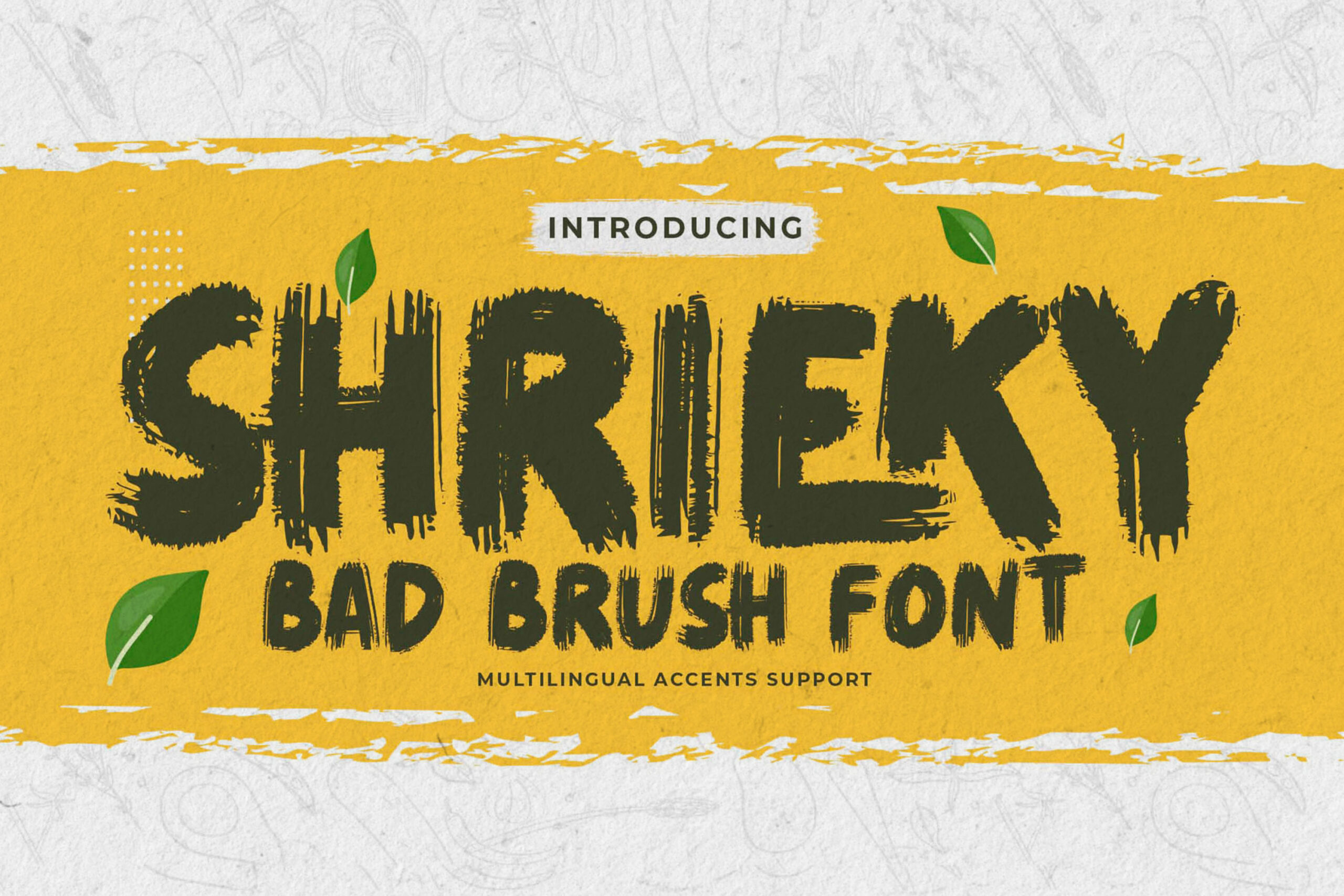
SHRIEKY – Bad Brush Font, modern style and dramatic movement that is written casually and quickly.
The best for labels,poster,project , designs look modern, authentic and fun. It’s perfect for labels, quotes, posters, DIY projects, branding, packaging, greeting cards, websites, photography overlays, signs, scrapbooking, tags and so much more! That is why SHRIEKY has a textured, and strong characteristic more natural look. You can activate Ligatures glyphs OpenType panel.